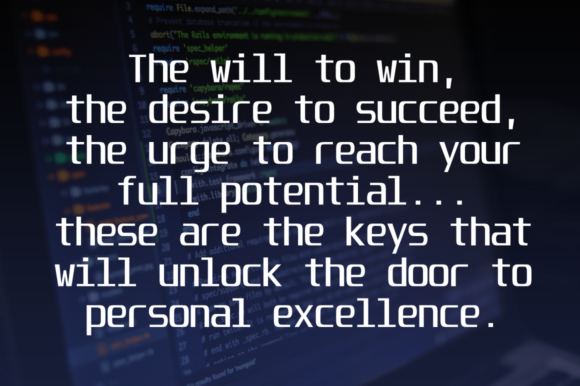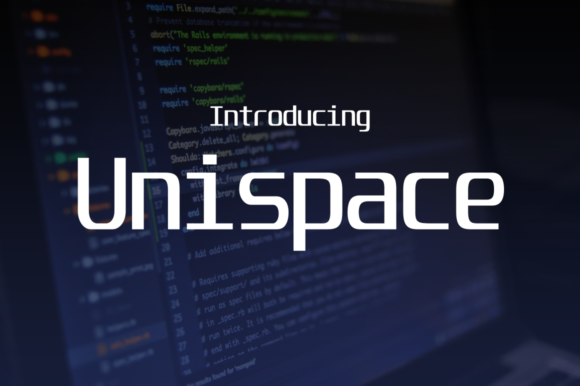
HomePersonal Use FreeUnispace Personal Use Free Unispace FacebookXPinterestWhatsApp 1 of 2 About Unispace Font Unispace is a futuristic looking sans serif font, ideal for use in modern and technology oriented designs. This free font comes from the talent at Typodermic! DOWNLOAD ON CREATIVE FABRICAThis font is sold and delivered by Creative Fabrica. Font Canyon may earn a commission if you buy through this link. People also explored Revonza Authentic Font Loving Heart Font Aqiente Font Genta Font Nesia Sans Home Font With Me Font Donittan Story Font MFC Livermore Monogram 669 0 TagsUnispace Font Previous articleStrasuaNext articleVanilla Whale LEAVE A REPLY Cancel reply Comment: Please enter your comment! Name:* Please enter your name here Email:* You have entered an incorrect email address! Please enter your email address here Website: Save my name, email, and website in this browser for the next time I comment. Personal Use Free Romansya Personal Use Free Read more about this font Little Pixel Personal Use Free Read more about this font Hunters Personal Use Free Read more about this font Sweet Someday Personal Use Free Read more about this font BLOG Fonts That Capture the Spirit of New York City New York City is more than just a place—it’s an experience, a rhythm, a visual language... Top 10 Handwritten Fonts That Elevate Your Designs Best Fonts for YouTube Videos: Make Your Thumbnails Stand Out Free vs Paid Fonts: Why Investing in Premium Fonts Is Worth It